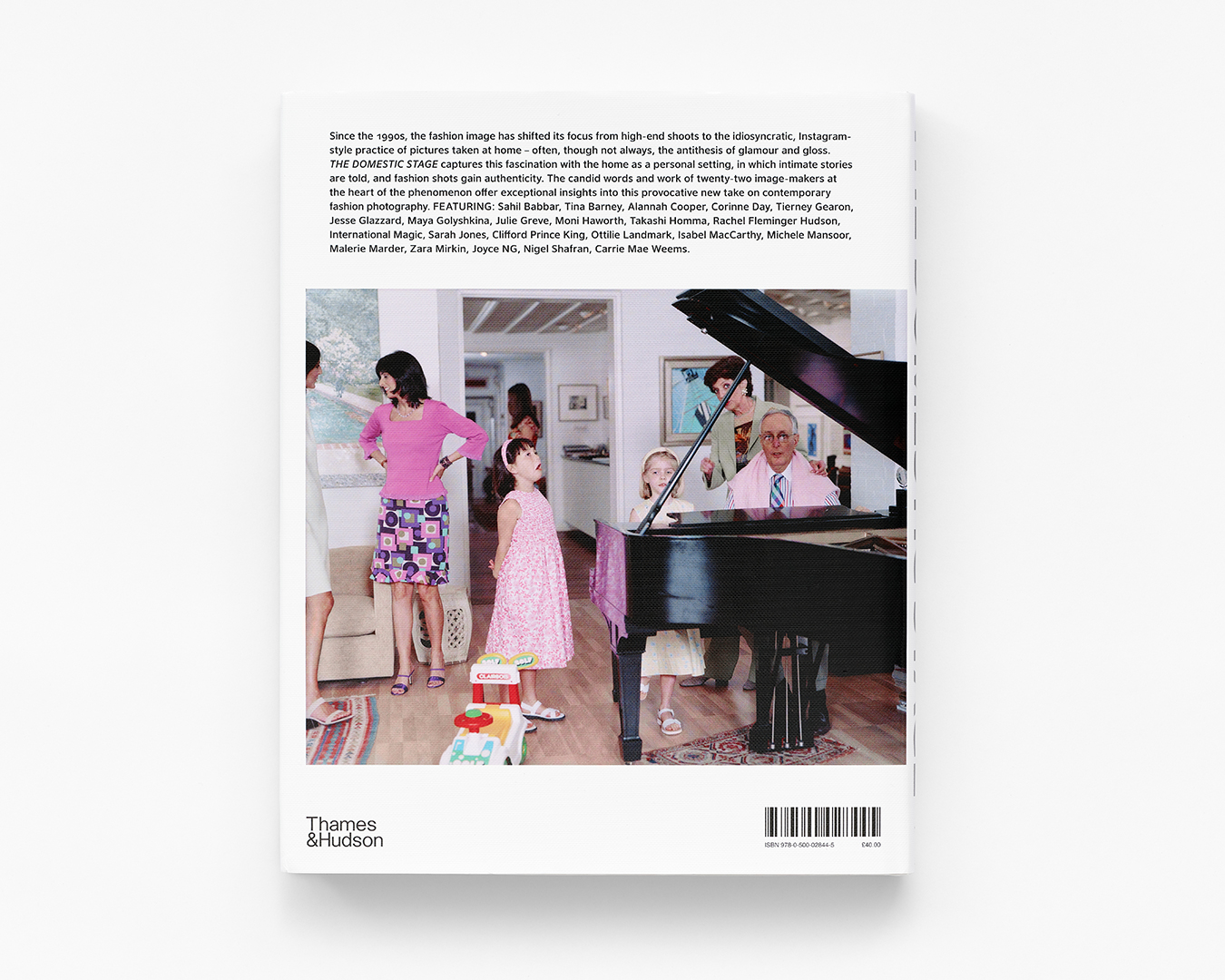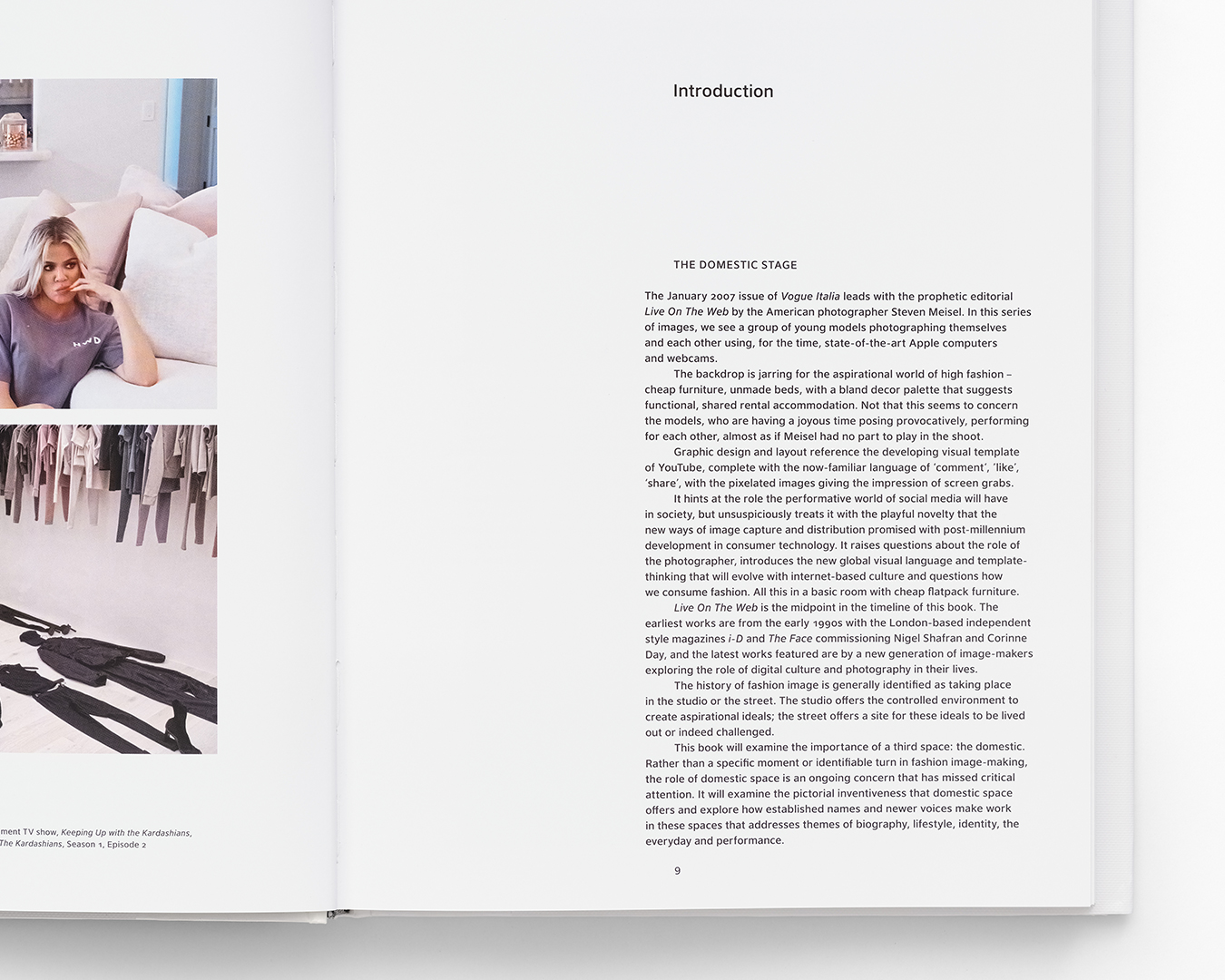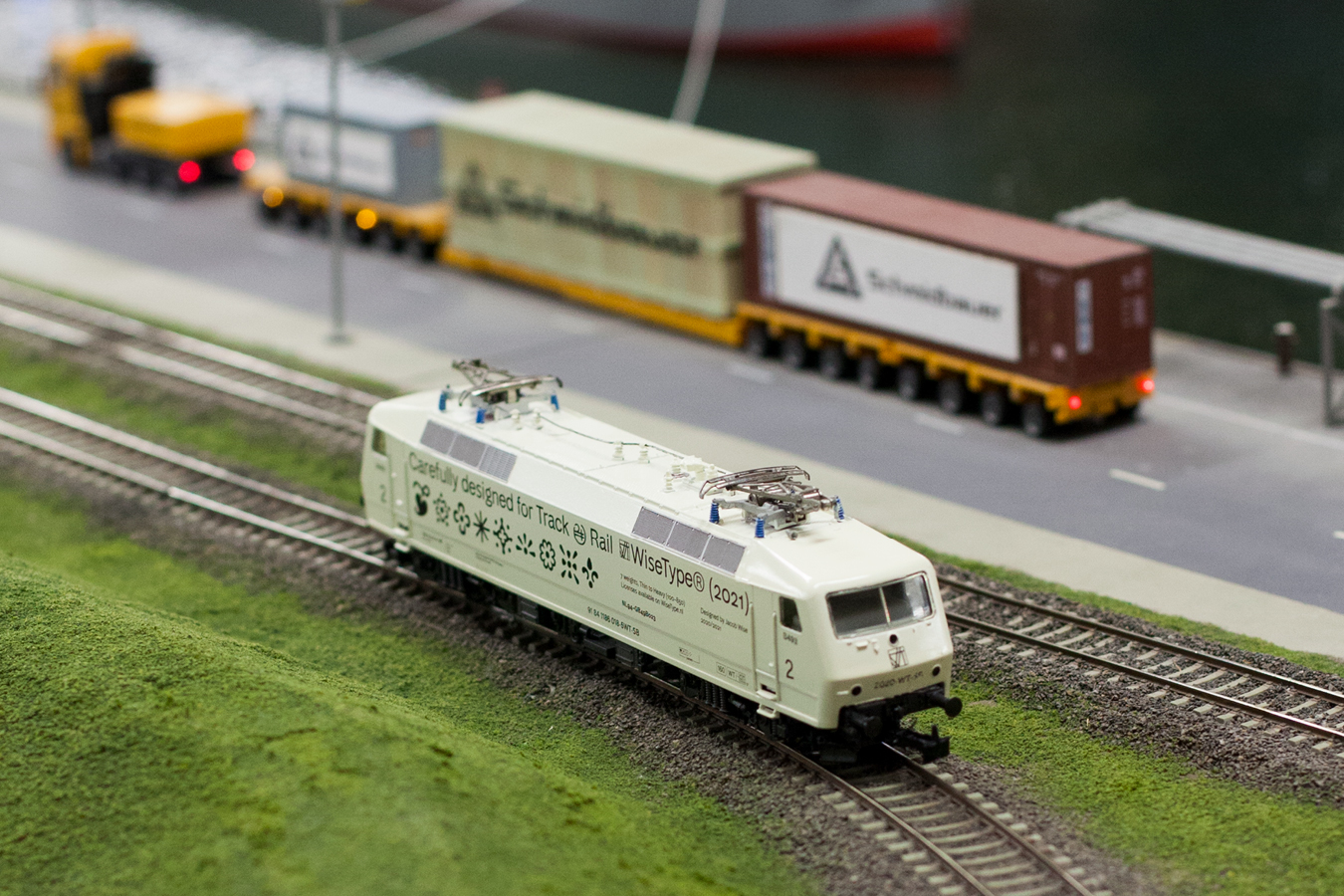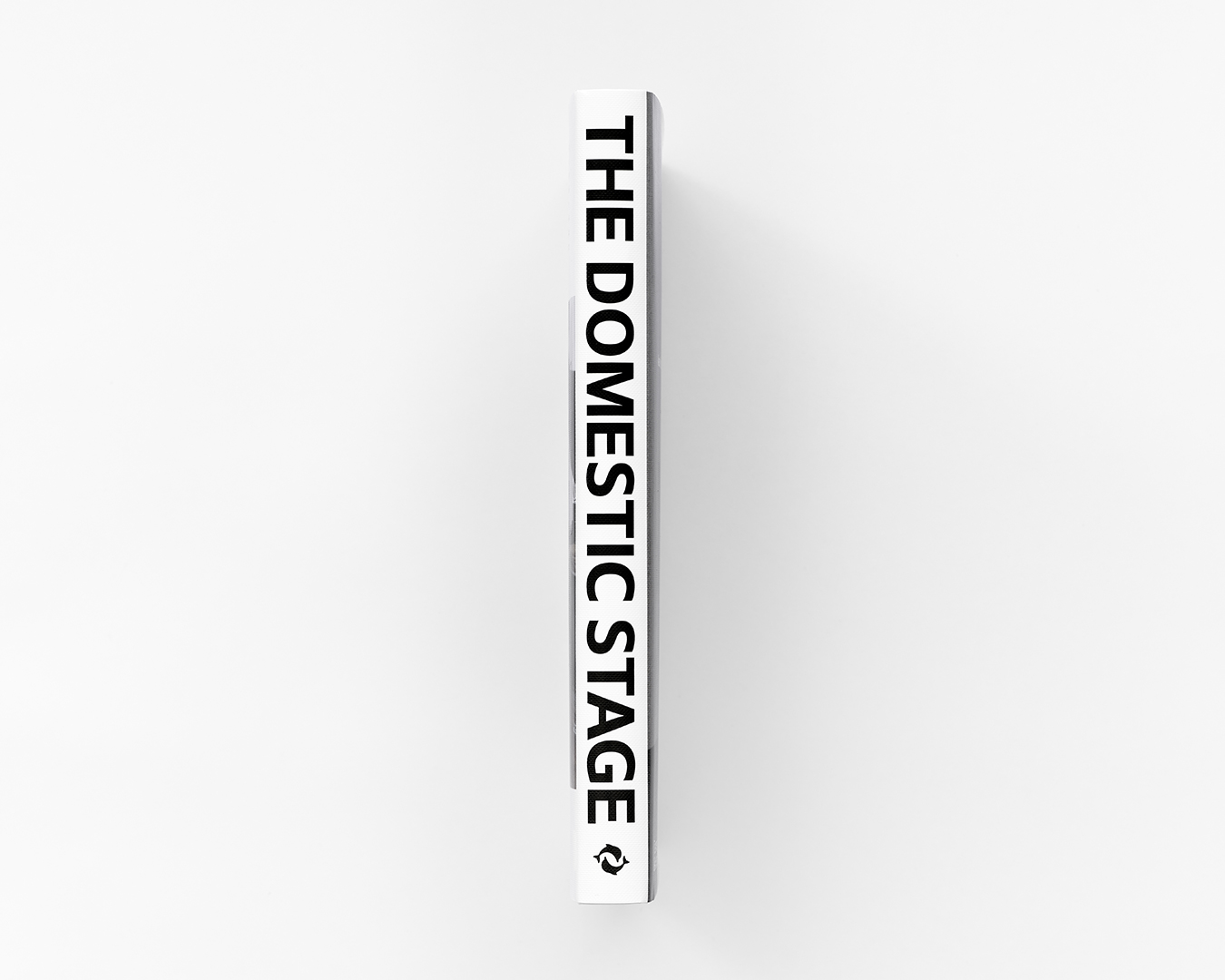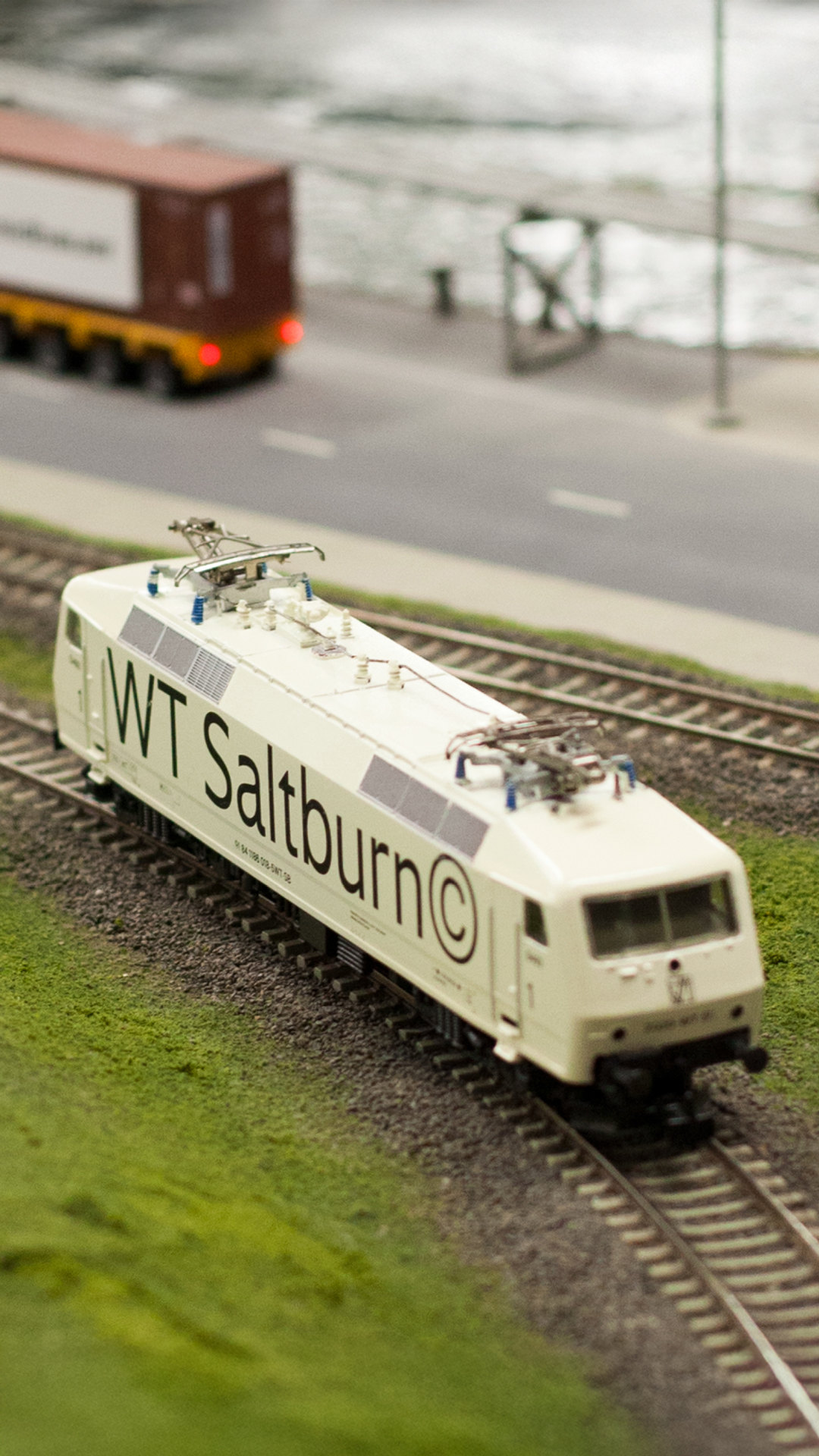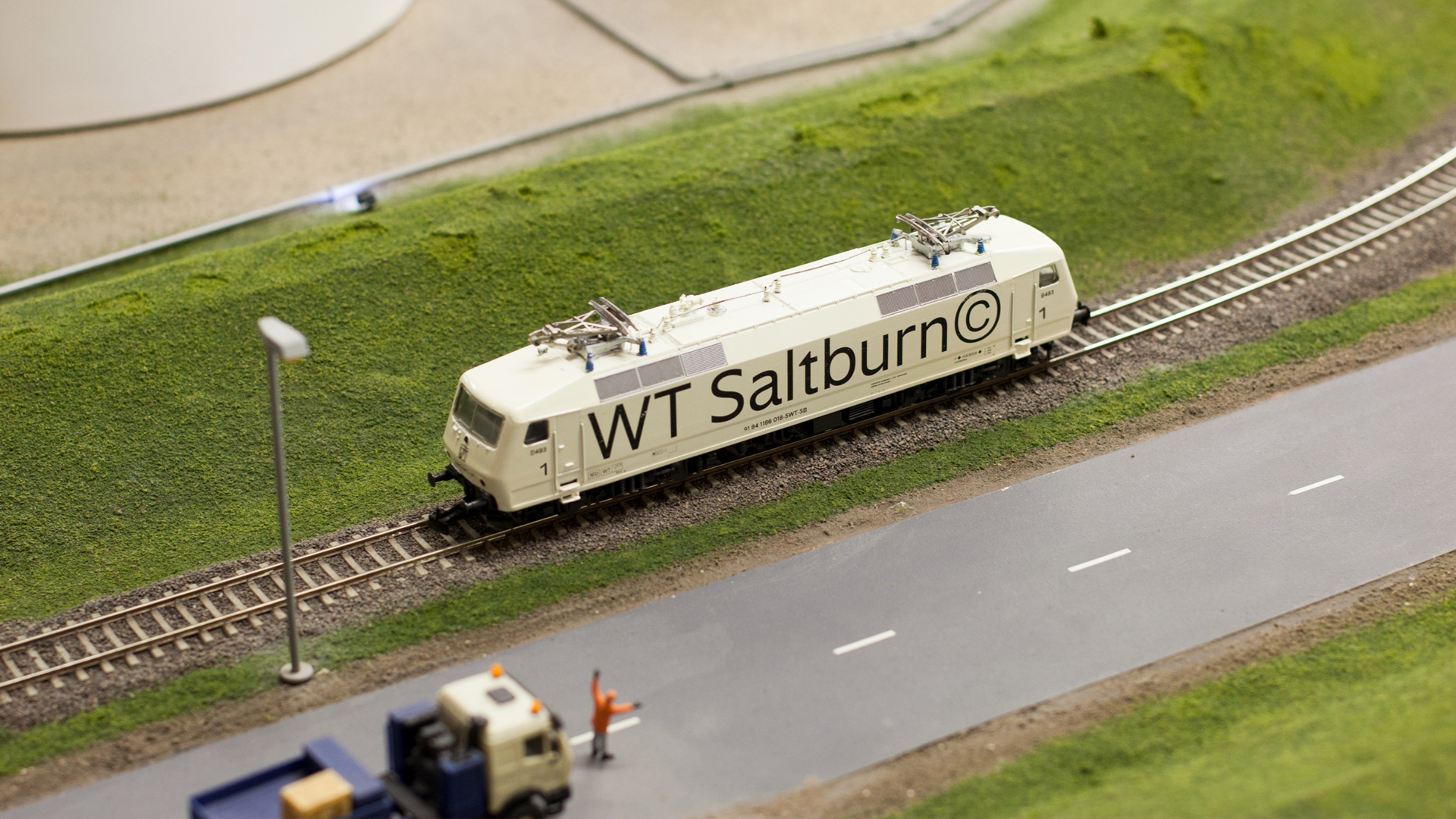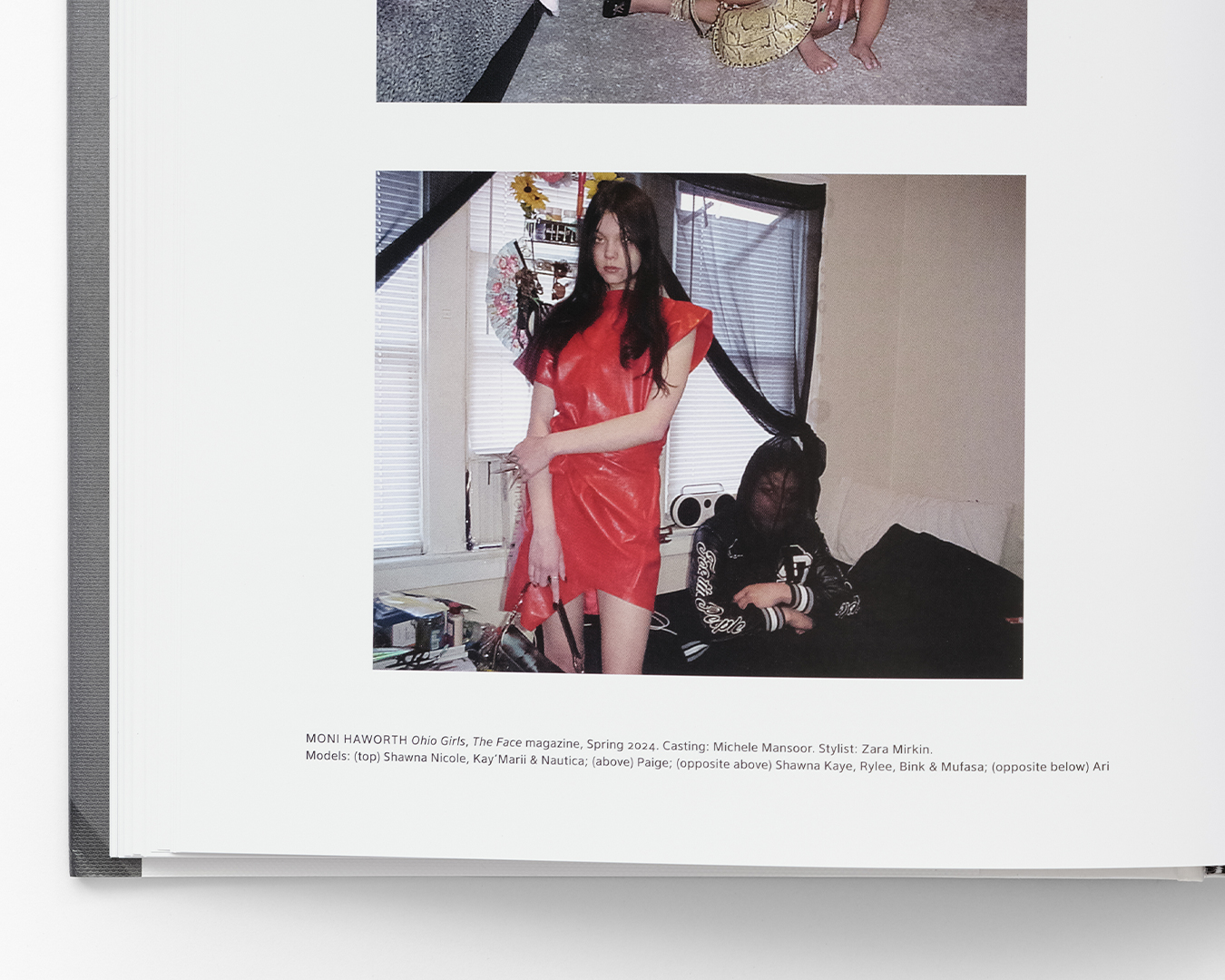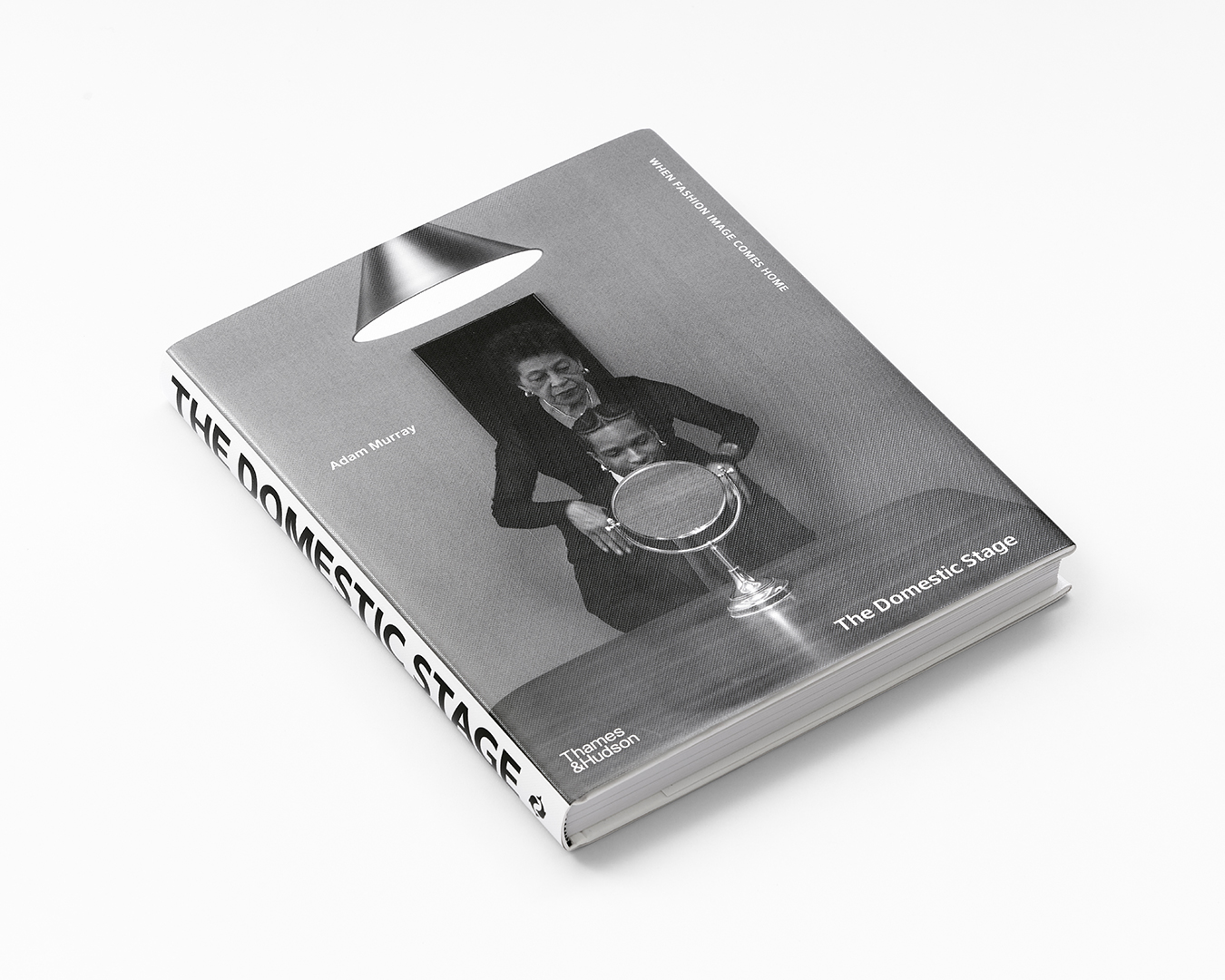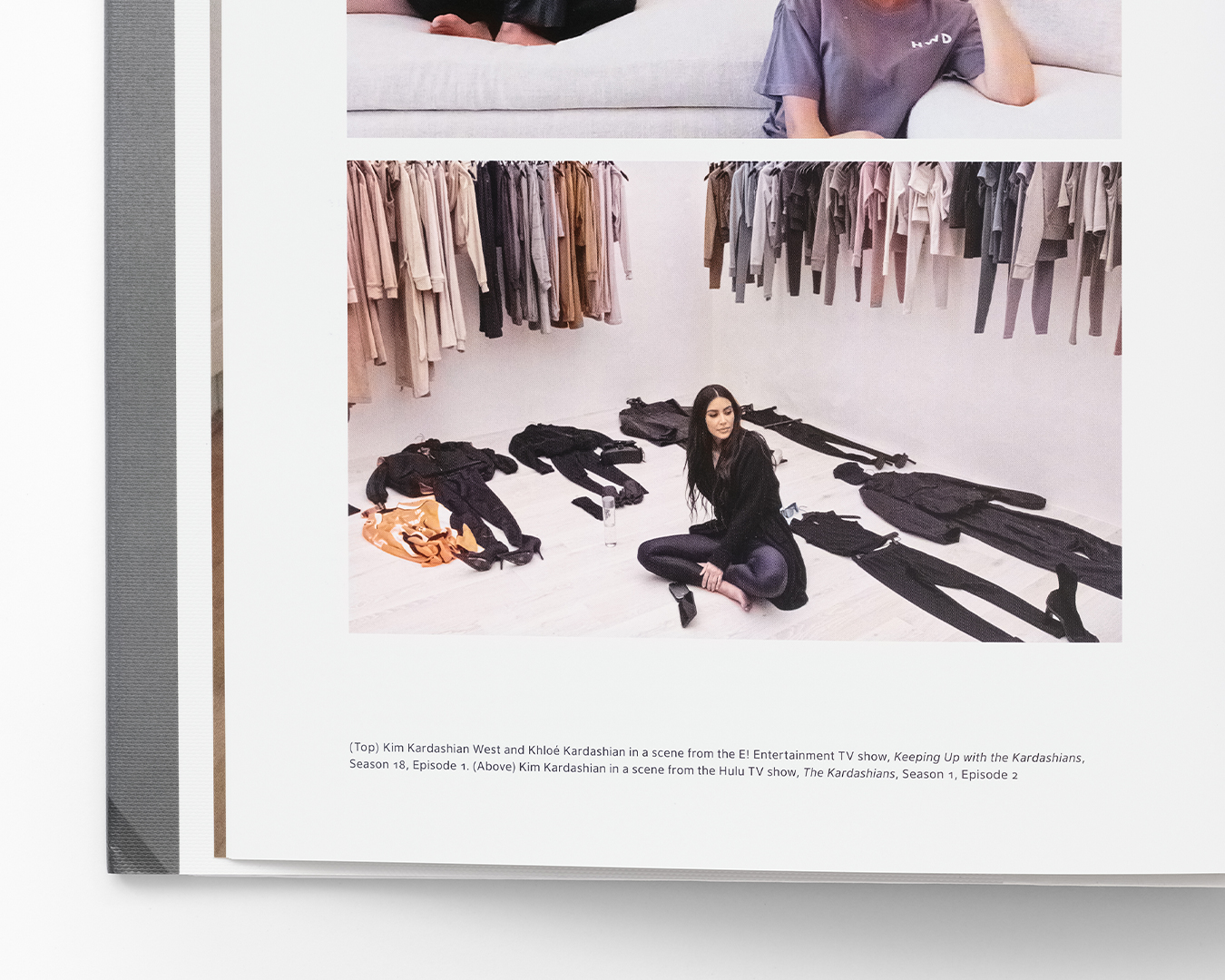
Saltburn
Saltburn is a railway-inspired variable sans serif designed for track and rail. From the outset, it draws on the British interpretation of the sans serif model, particularly Edward Johnston’s Underground Alphabet (1916) and Eric Gill’s subsequent Gill Sans (1928), which encapsulated a uniquely British take on the sans serif – a humanist alternative to the more geometric styles emerging on the continent.
Saltburn strives to blend into the "railway style" adopted by nationalised networks across Europe. Aiming to strike a balance between three particular railway networks: British Rail, the Dutch NS, and the Swiss Federal Railways (SBB) – all of which employ a similar, neutral house style. It combines humanist features; open counters and sharp terminals, with grotesque proportions. The default character set features a distinctive double-story 'g' and a chiselled 't' as well as more standard alternatives depending on taste. Saltburn also offers an extensive selection of figures, fleurons, symbols, and pictograms to enhance typographic possibilities. The family spans nine weights, from Thin to Heavy, with a variable version providing weight and italic customisation.
The name references Saltburn-by-the-Sea, a small seaside town in the East Riding of Yorkshire, which owes its development to the Stockton & Darlington Railway – the very first public steam railway in operation.
• Design
Jacob Wise
Alternative g
Alternative t
Alternative J
Alternative ampersand
Case Sensitive Forms
Slashed Zero